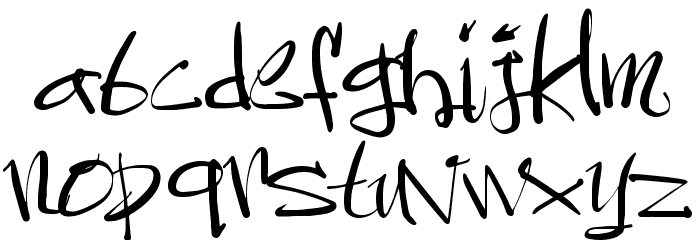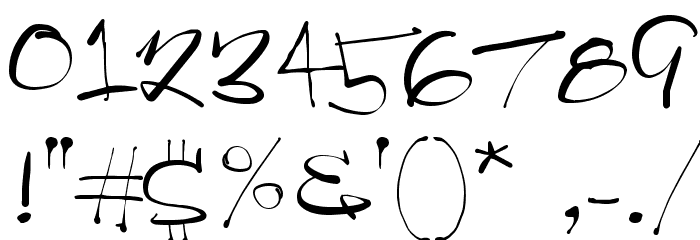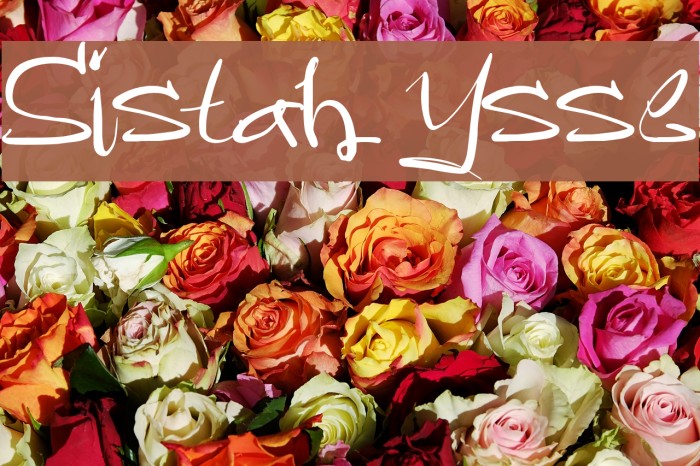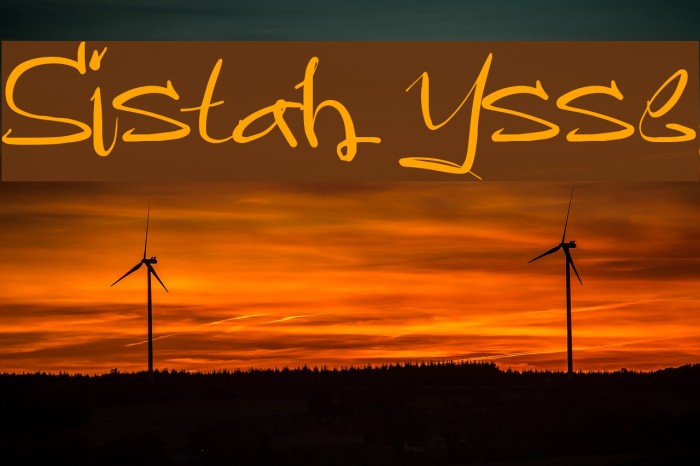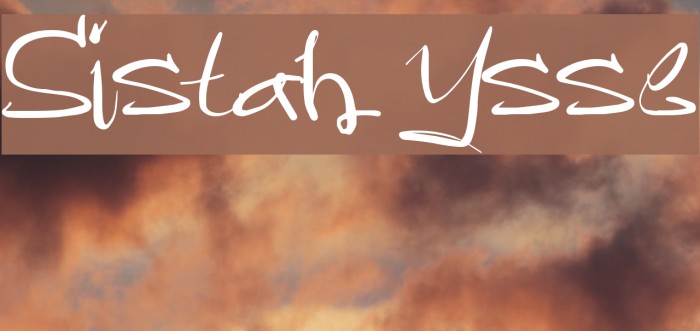
Sistah Ysse Font
This font exhibits a dynamic and expressive style, characterized by its handwritten appearance. The letters are crafted with a playful and artistic flair, featuring irregular strokes and varying line thicknesses that give it a lively and spontaneous feel. The uppercase and lowercase letters maintain a consistent style, with some letters displaying unique embellishments and loops. The numbers and special characters are equally expressive, maintaining the overall whimsical aesthetic. This font is ideal for projects that require a personal touch, such as invitations, greeting cards, or creative branding materials.
A dynamic, handwritten font with playful and expressive strokes.
- Proposed Projects: Ideal for invitations, greeting cards, creative branding, and artistic projects.
- Use Case: Headlines, Artistic projects, Invitations